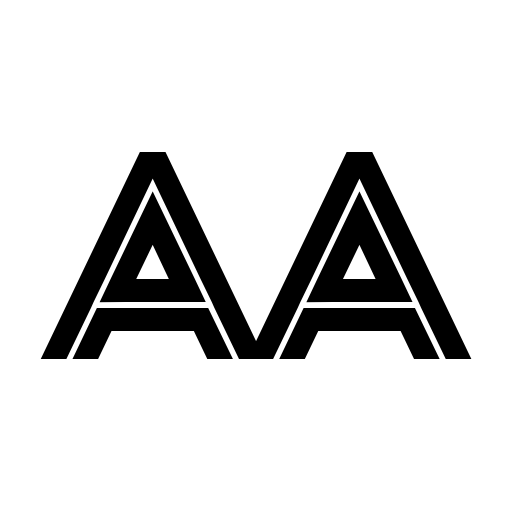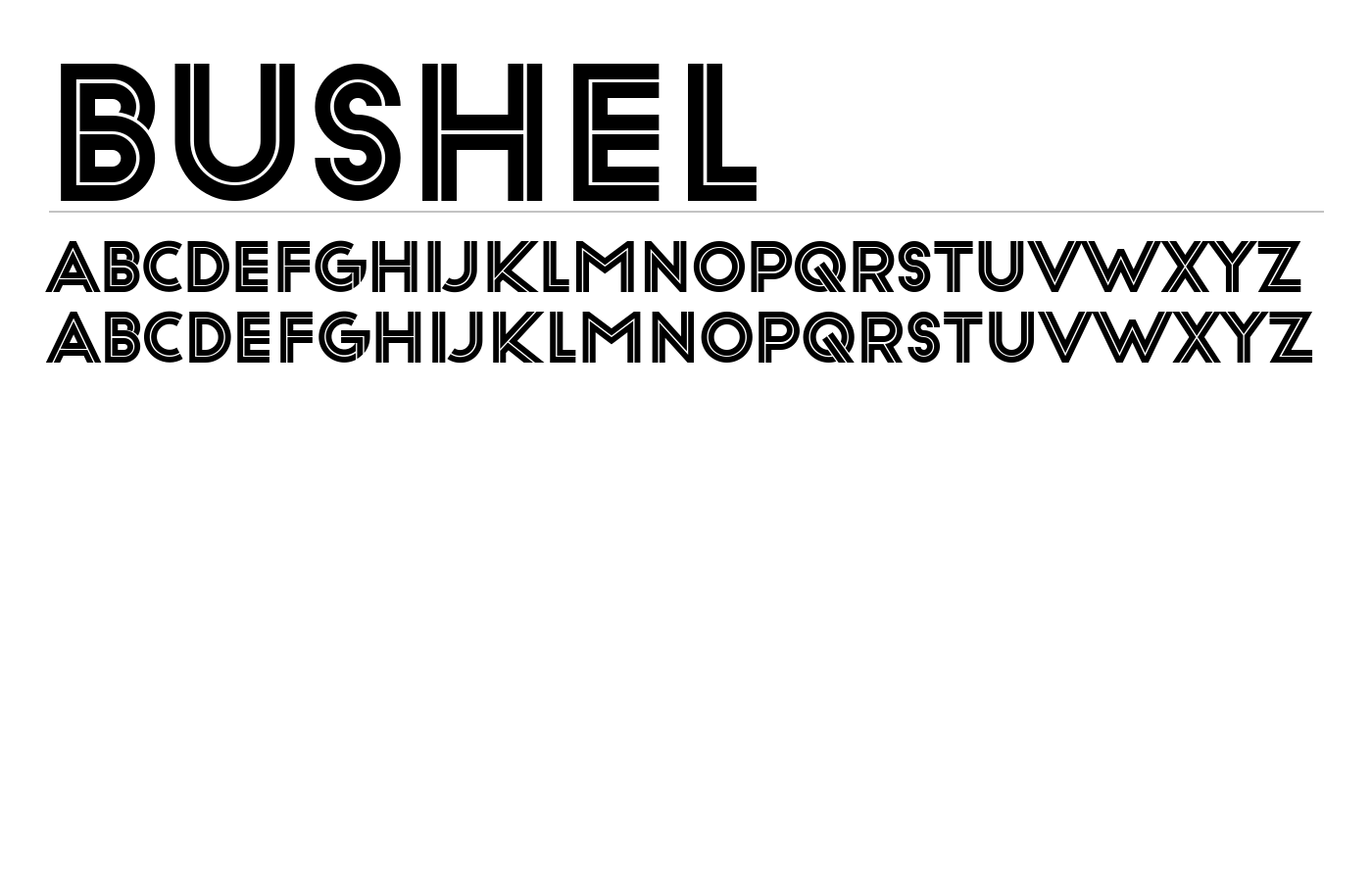
Bushel is a bold, geometric sans serif font with a modern, art deco-inspired style that features layered, inline detailing creating a sense of depth and sophistication. Its strong lines and uppercase-only design make it perfect for eye-catching headlines, logos, and branding that aim to convey confidence and elegance with a playful twist. This font works especially well in fashion, packaging, and editorial contexts where a distinctive, stylish impact is desired.
Bushel Font
About Bushel Font